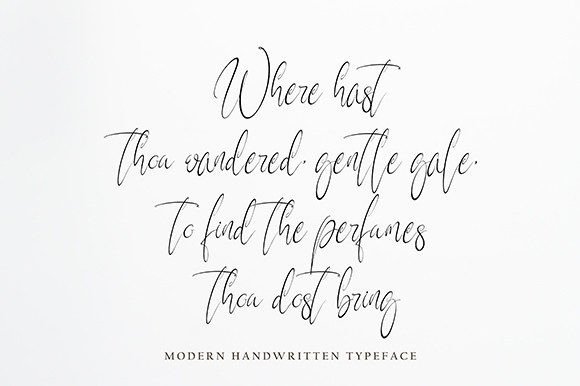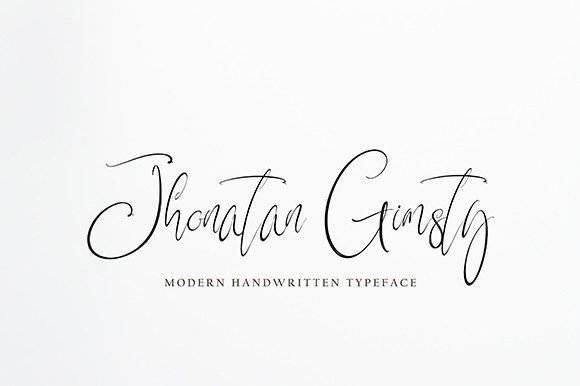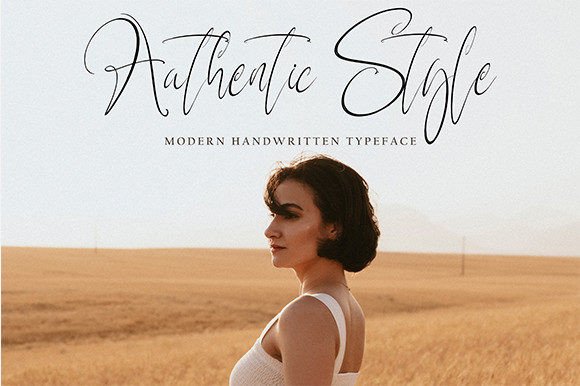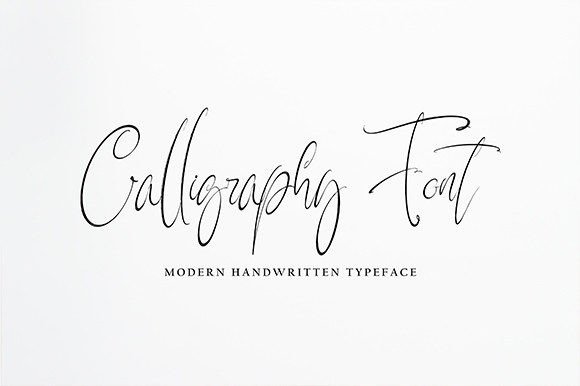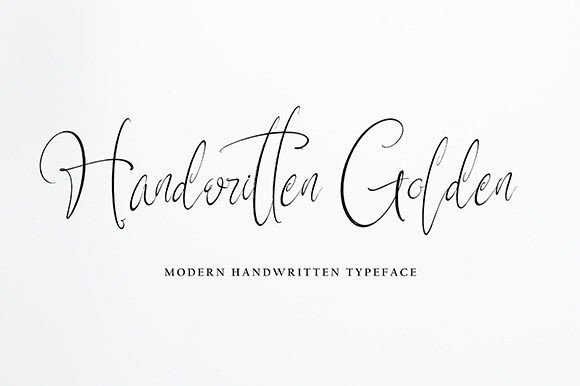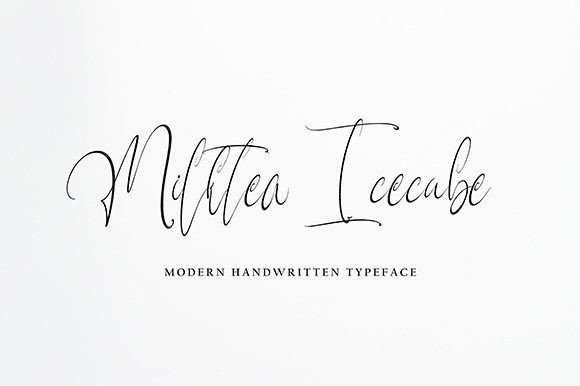
Introduction to Matchalatte Font
MatchaLatte is a stylish and new handwritten font, perfect for many different projects such as quotes, logos, blog headers, posters, banding, letters, invitations, stationery, etc.
Key Features of Matchalatte Font